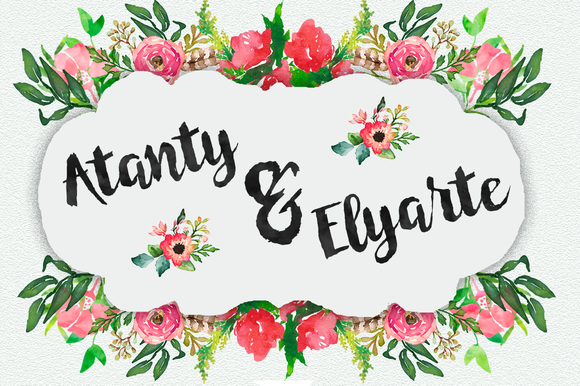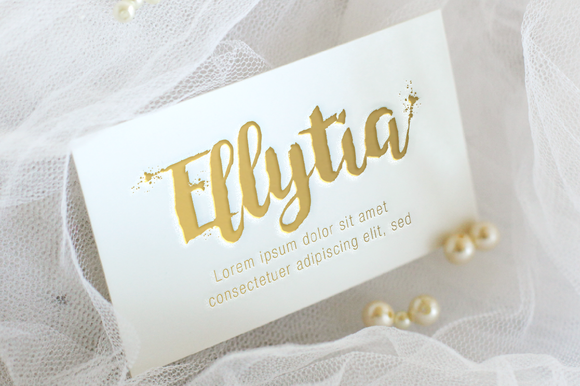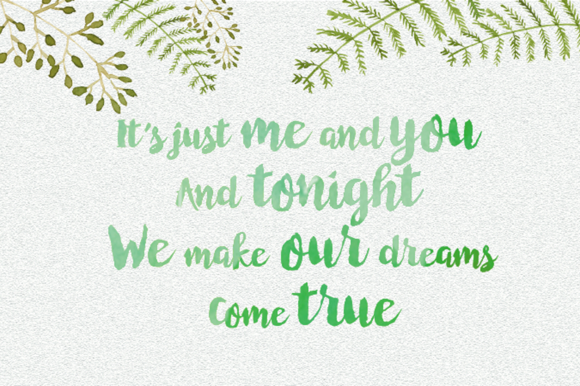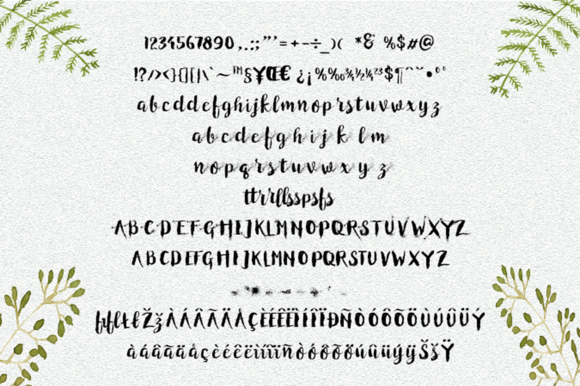
Random Ink Font
About Random Ink Font
Random Ink is a fun rough brush font with it’s own characters. The font is ceated by using a coarse brush. The alternates have been created with a technique called “Splash painting”.